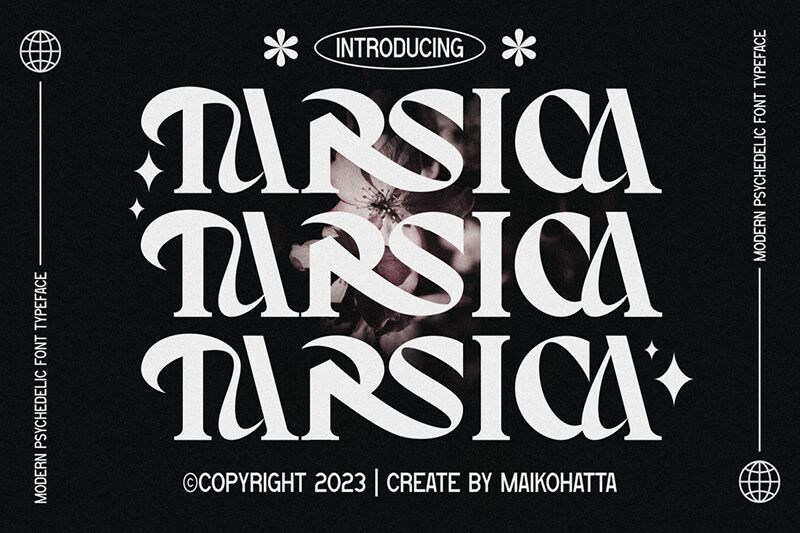
TARSICA
Tarsica font by Gilang Ternadho is a bold stylized free display font with an artistic touch and a modern twist. The letters are presented with dramatic flair in their ornate elements that form perfection in the whole consistency of the characters. On top of being groovy, the font is additionally trendy, artistic, carefree, and fun.